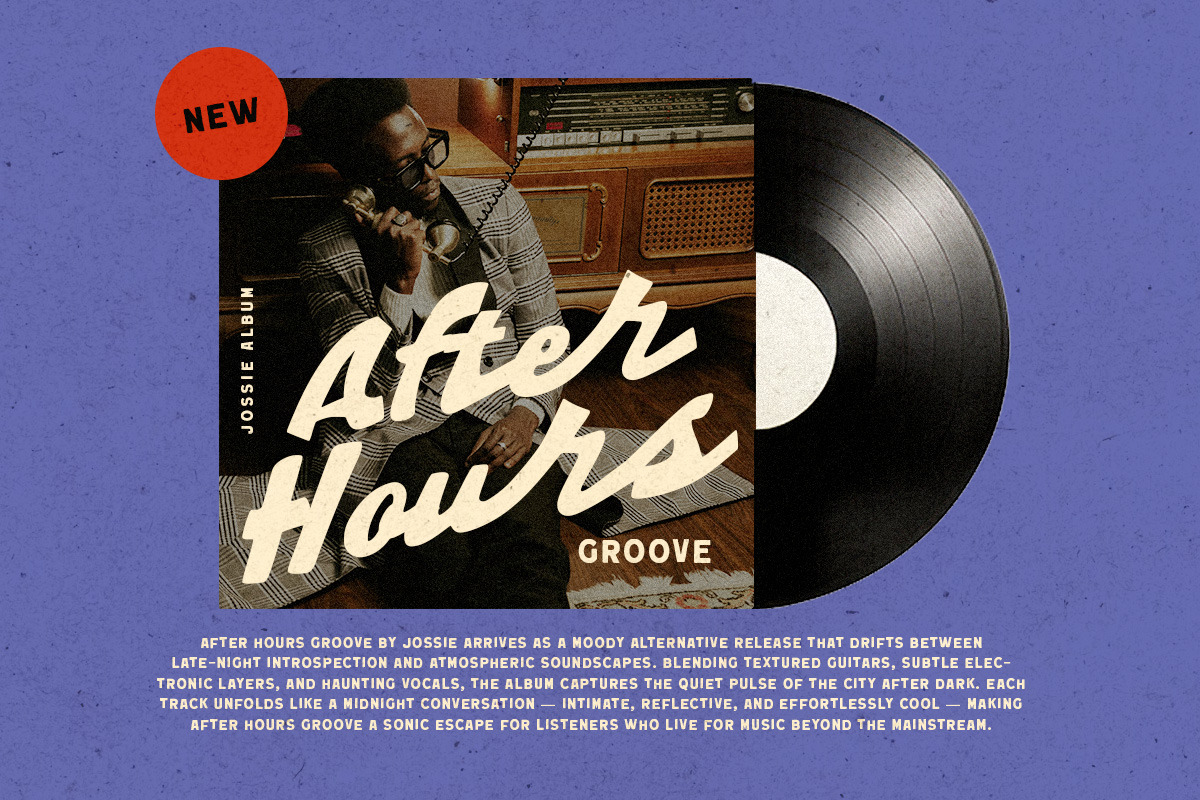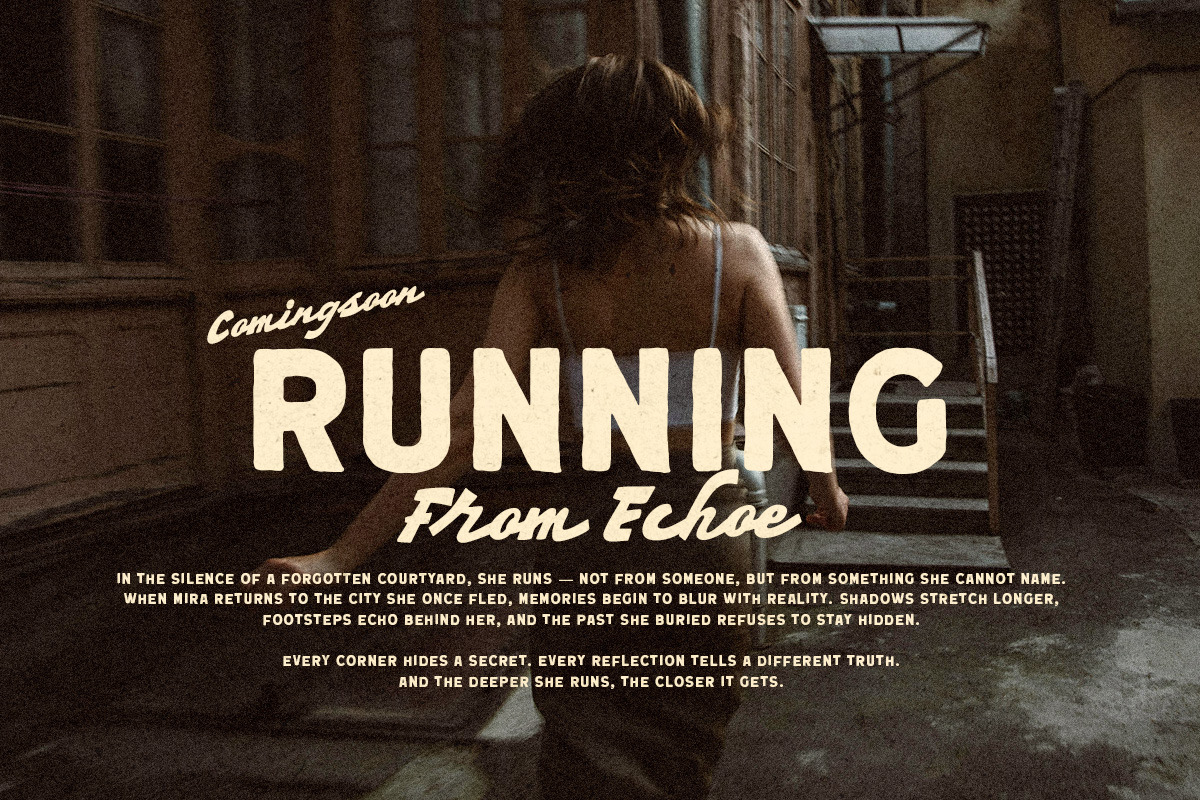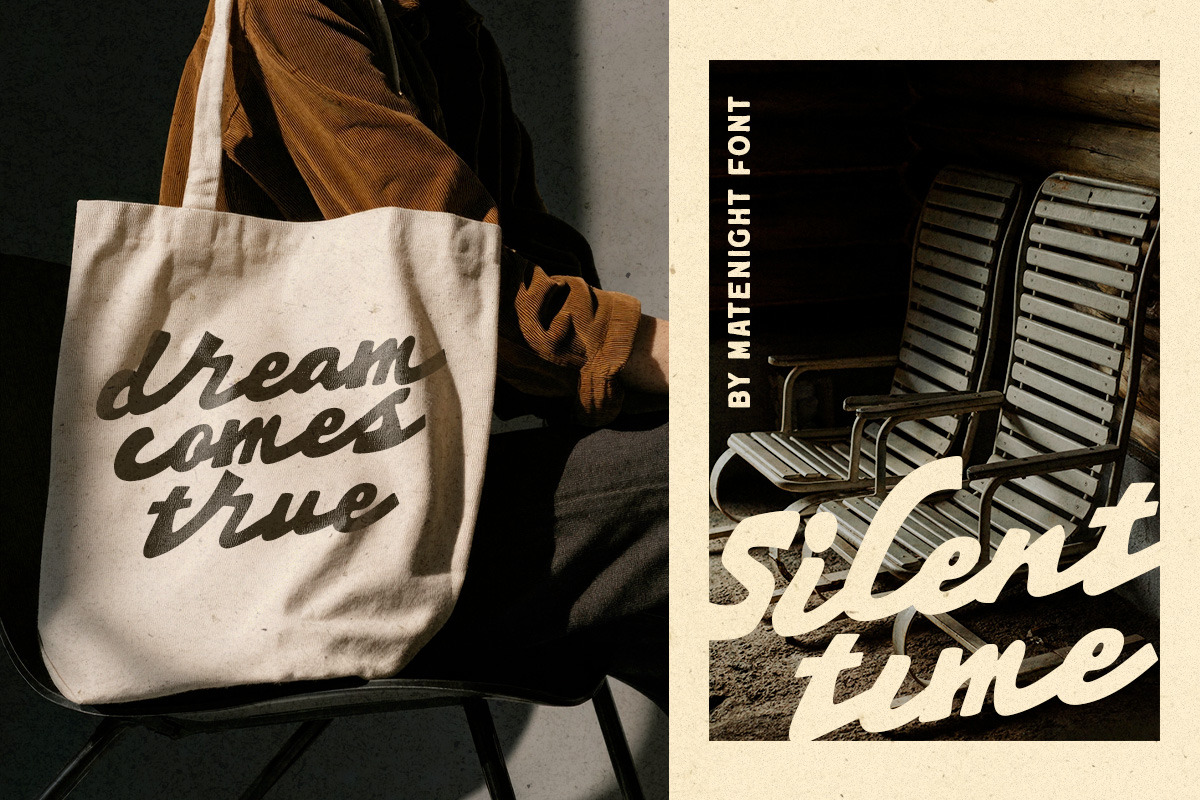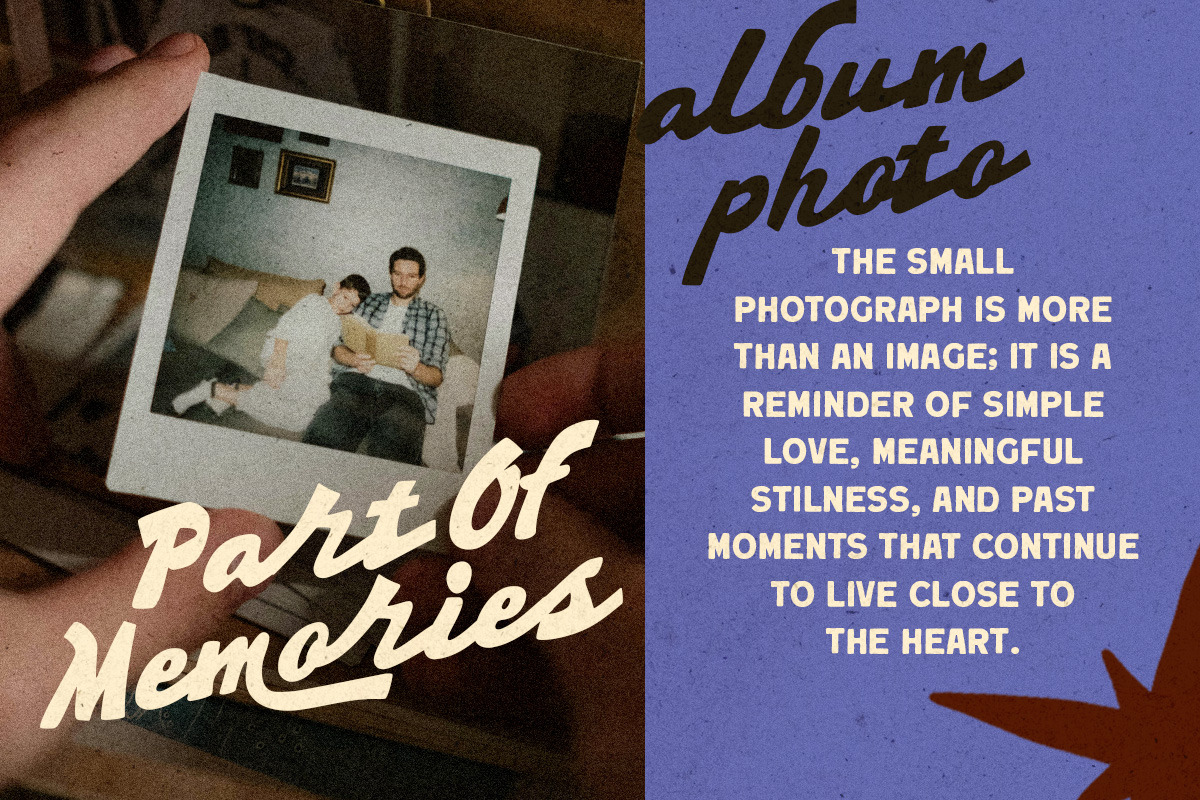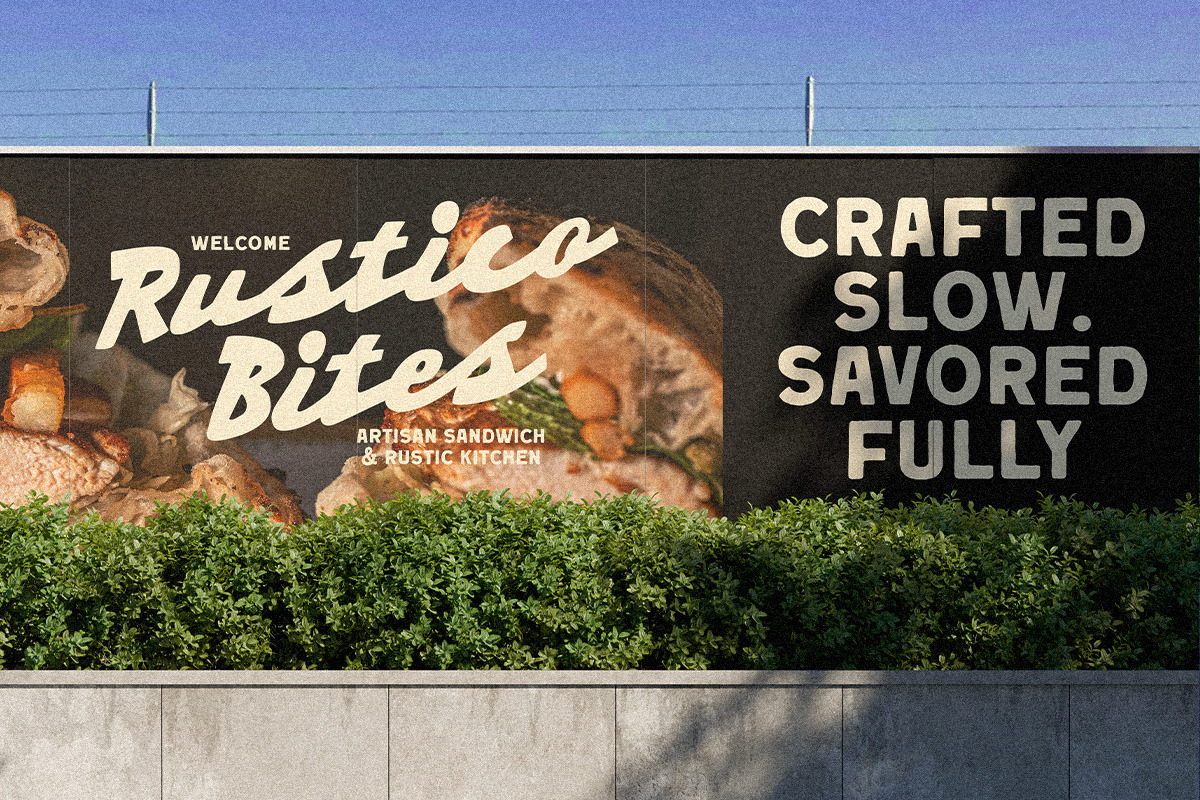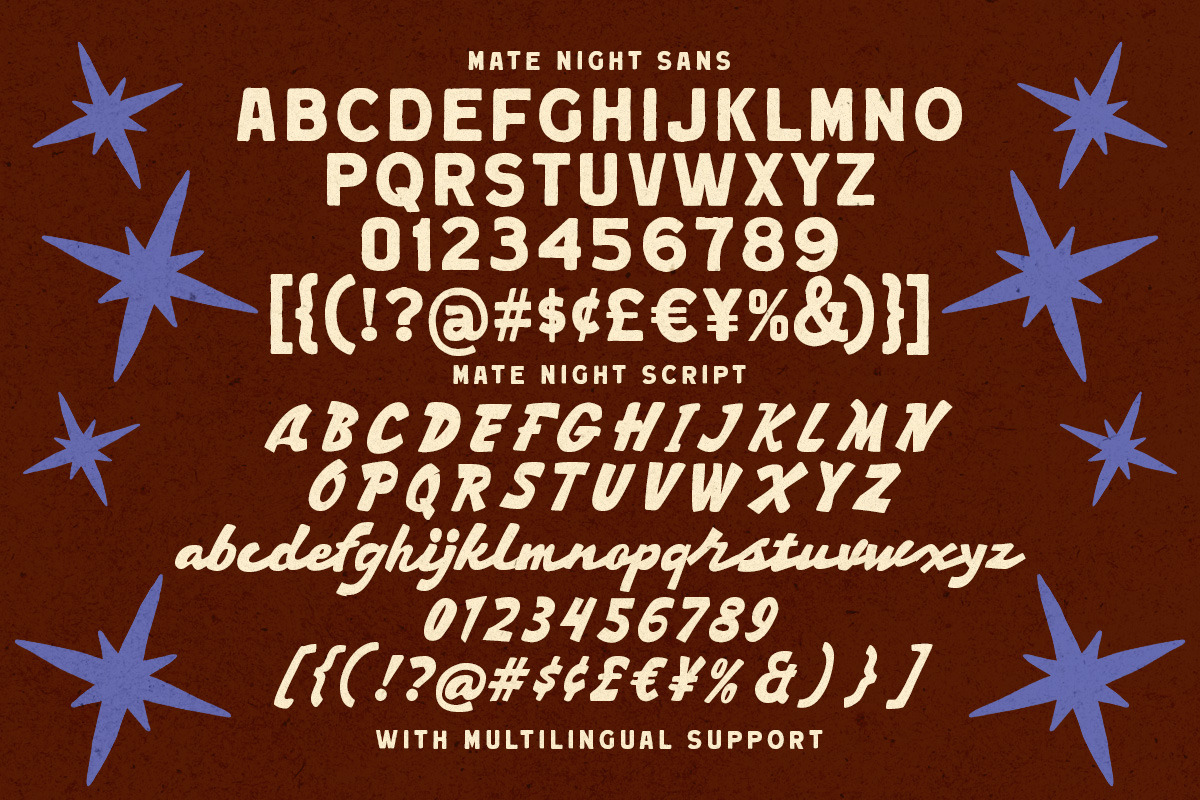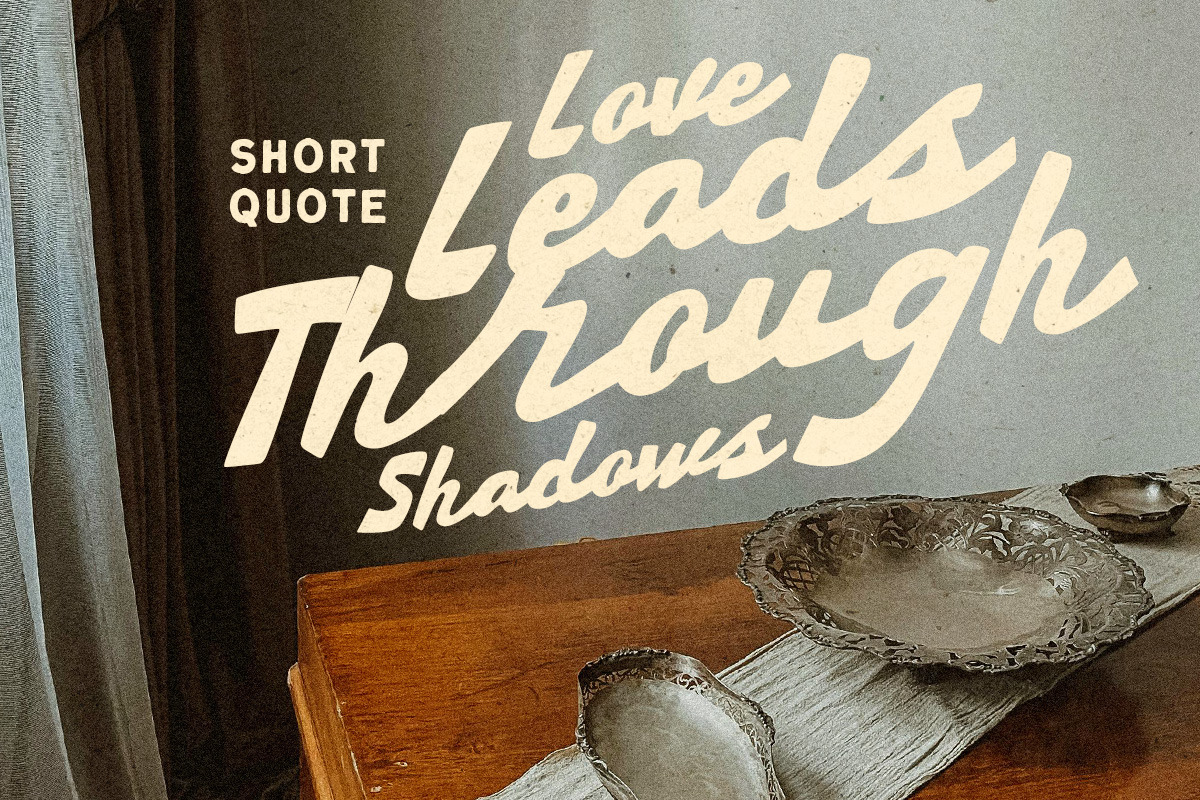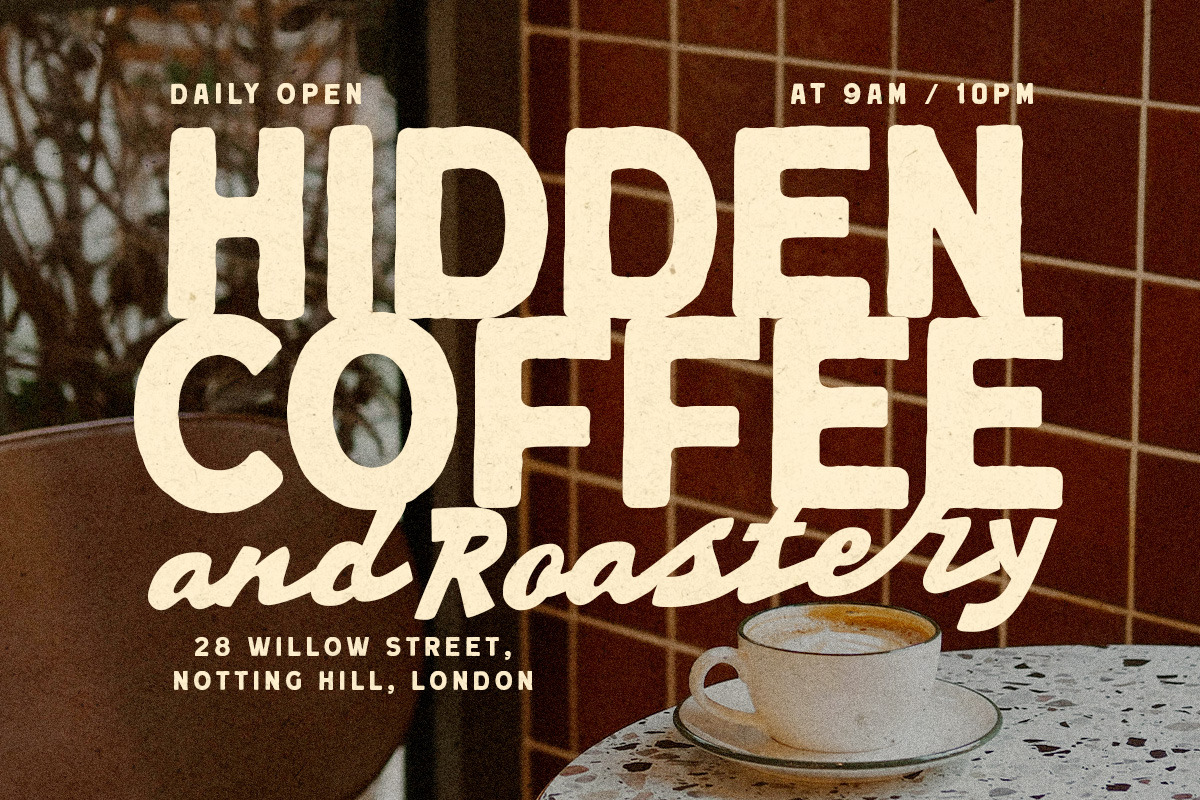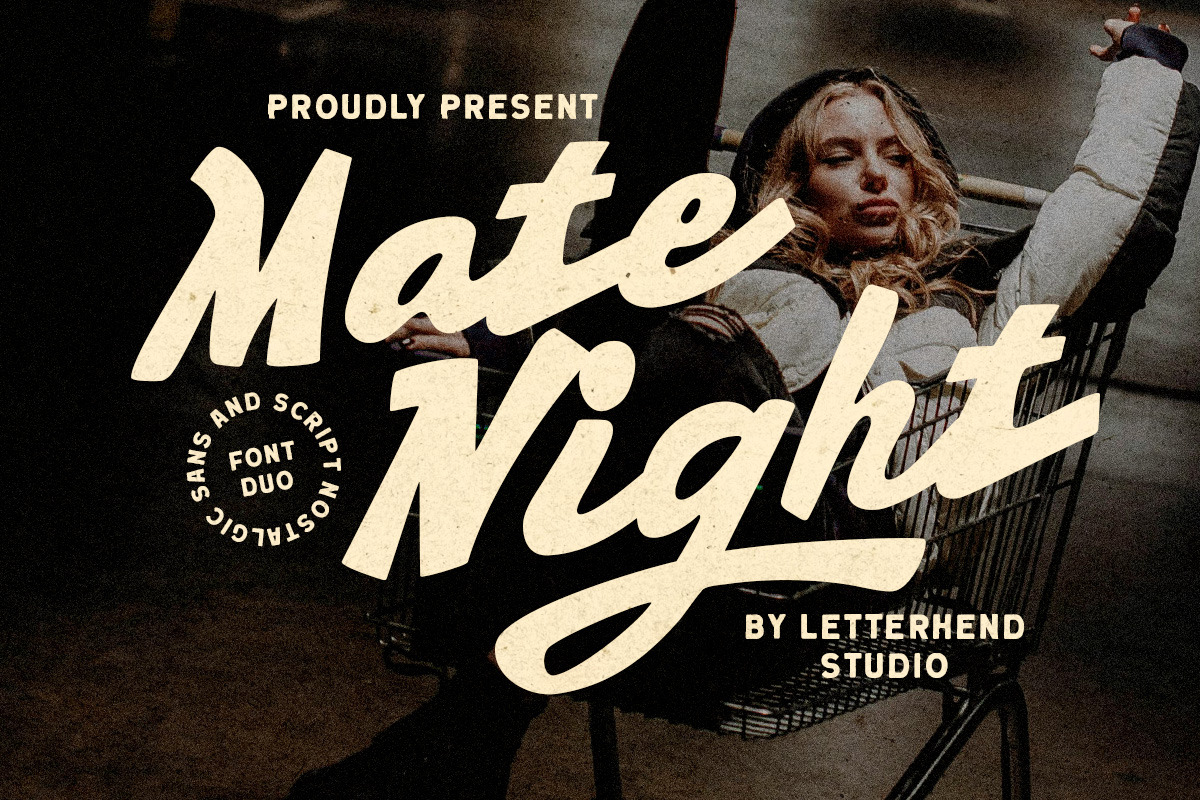
Mate Night Font Duo
Mate Night a nostalgic script and sans font duo that brings a bold cinematic vibe with a touch of retro adventure. The script flows with smooth, expressive strokes that feel lively and confident, while the sturdy sans adds a clean, classic contrast—perfect for creating eye-catching titles and stylish layouts.